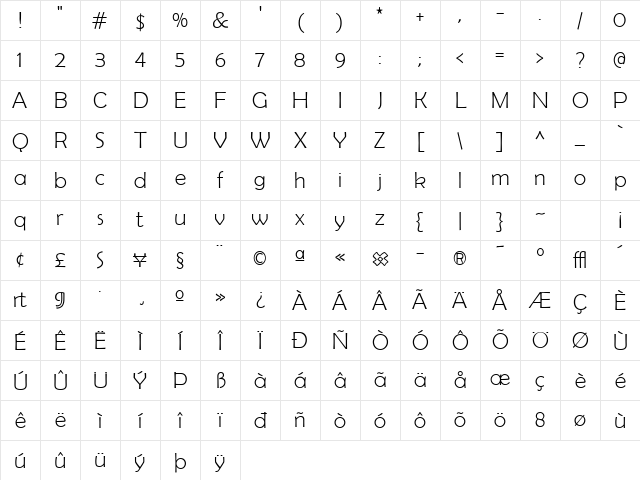
Complete Berlinsans Light glyph index. Displaying only characters natively supported by Berlinsans Light font.
Berlinsans is a composed and adaptable typeface that performs quietly and consistently across a wide range of design contexts. Its slender proportions lend an understated elegance to any composition.